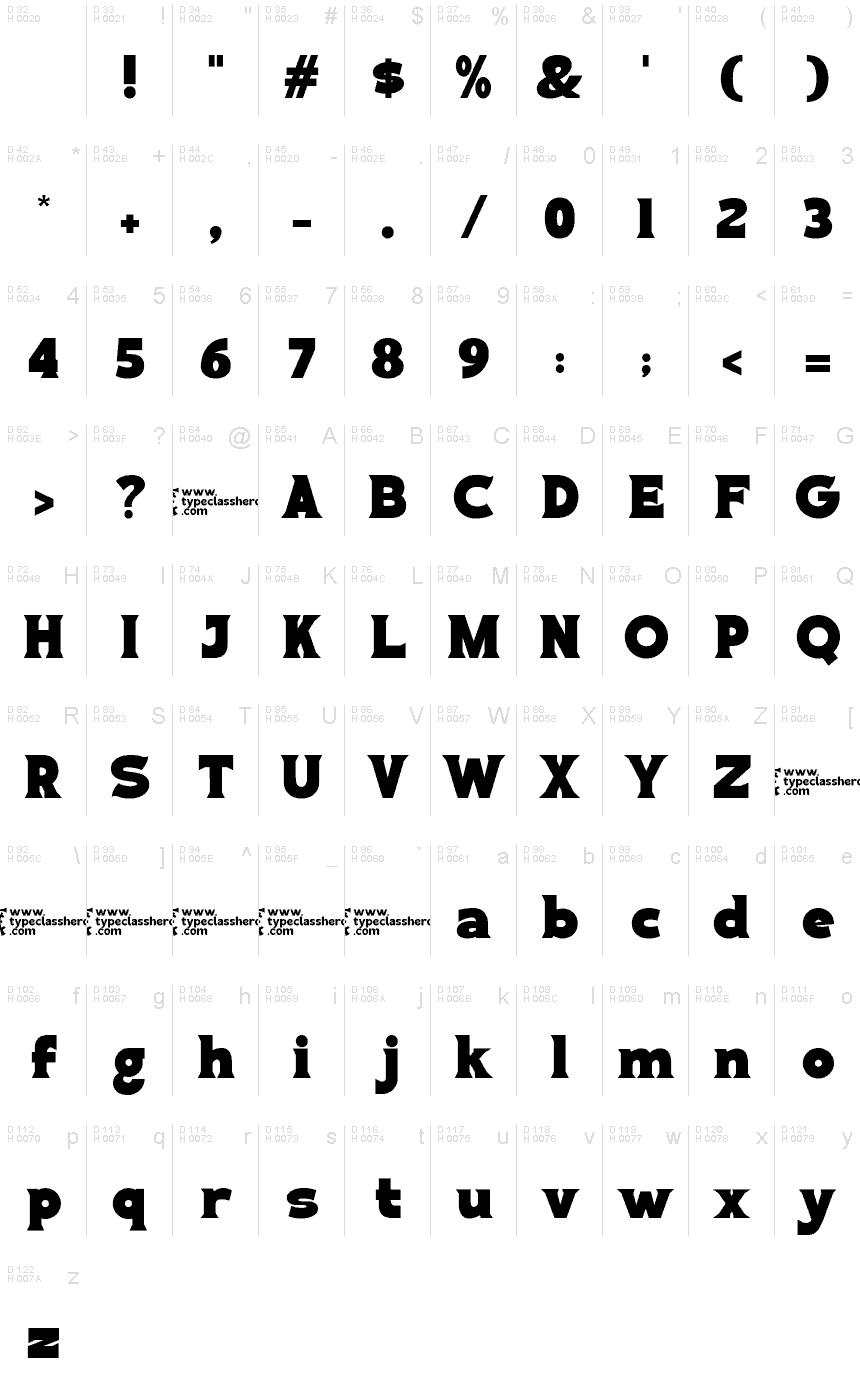
Fiore Ebrey Demo
Fiore Ebrey font is a serif typeface designed by madeDeduk with a bold weight and robust appearance. Its harmonious lettering presents vintage-oriented elements with dominance and elegance. The combination of the typography’s thick strokes and unique personality makes it distinctive in projects with classic or professional tones.